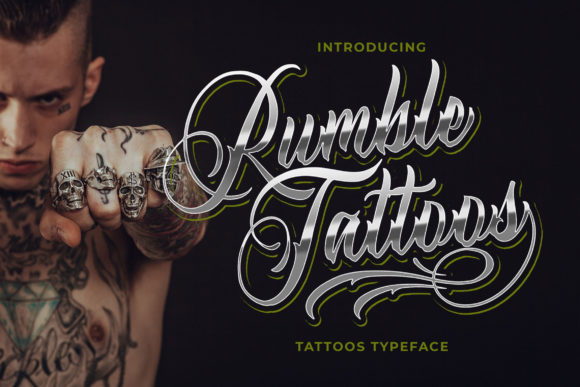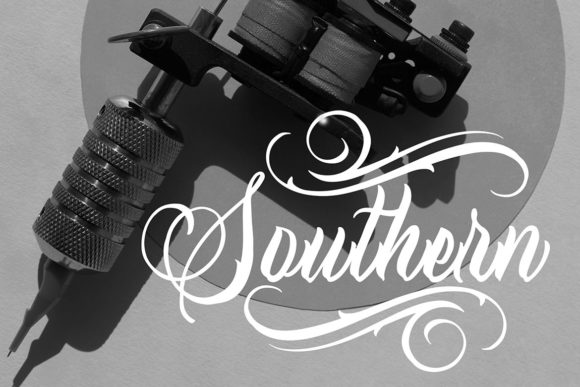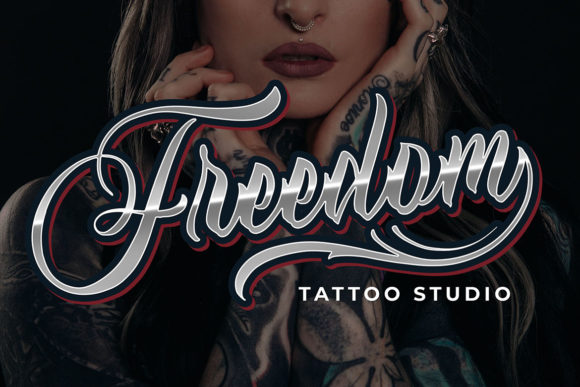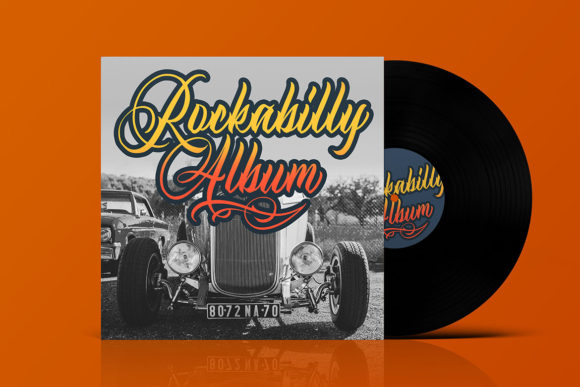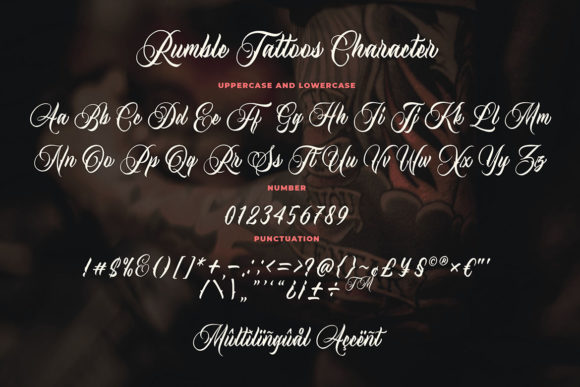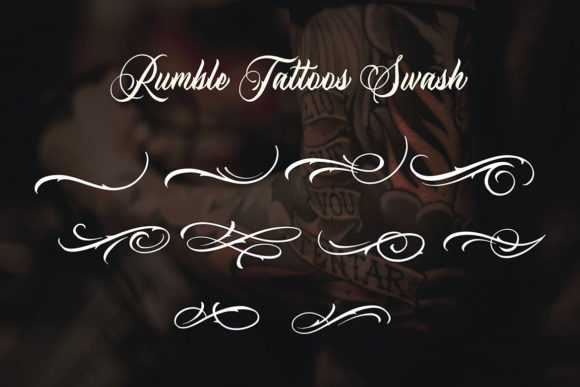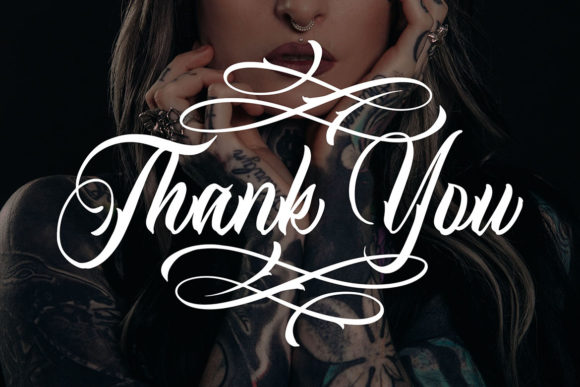
HomeScript FontsRumble Tattoos Font Script Fonts Rumble Tattoos Font FacebookXPinterestWhatsApp Rumble Tattoos Font Poster 2 Rumble Tattoos Font Poster 3 Rumble Tattoos Font Poster 4 Rumble Tattoos Font Poster 5 Rumble Tattoos Font Poster 6 Rumble Tattoos Font Poster 7 About Rumble Tattoos Font Rumble Tattoos is an edgy script font with commanding style. Get inspired by its aggressive style! DOWNLOAD ON CREATIVE FABRICAThis font is sold and delivered by Creative Fabrica. Font Canyon may earn a commission if you buy through this link. People also explored Goverent Coffee and Friend Font Septhia Font Hello Christmas Font Charlotte Font Original Chocolate Font Lavenice Font Aerof Font Chupada 257 0 TagsRumble Tattoos Font Previous articleHello Fhillya FontNext articleRawinda Font LEAVE A REPLY Cancel reply Comment: Please enter your comment! Name:* Please enter your name here Email:* You have entered an incorrect email address! Please enter your email address here Website: Save my name, email, and website in this browser for the next time I comment. Personal Use Free Panaroe Personal Use Free Read more about this font Persephone Free Personal Use Free Read more about this font Neuropol Personal Use Free Read more about this font Marthissa Personal Use Free Read more about this font BLOG Transform Your Website: Elevate Your Typography with 7 Best Web Font Generators Are you ready to transform your website's typography from ordinary to extraordinary? Great! Today, we're diving into the world of web font generators, which... How to Cut Any Font on Cricut: Convert a Font to SVG (Free) Top 10 Handwritten Fonts That Elevate Your Designs Using Fonts in Digital Marketing: Tips to Strengthen Your Brand Identity